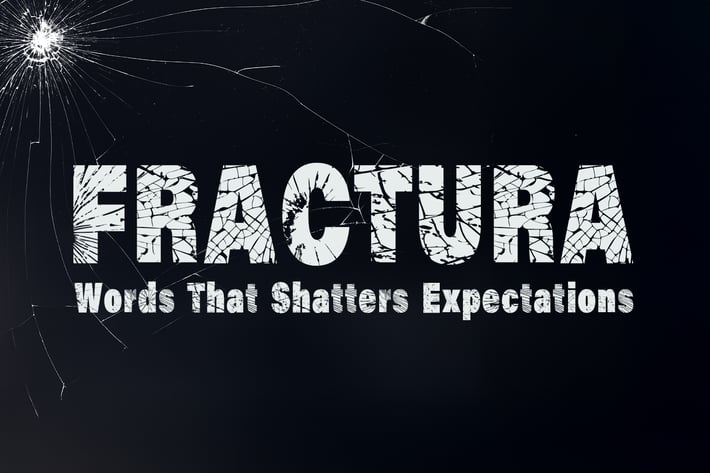
Fractura Font
Font Description:
Discover Fractura, a bold, striking cracked-style font perfect for creating edgy, distressed designs. Ideal for logos, posters, album covers, gaming visuals, and more, Fractura adds a raw, fragmented aesthetic to your projects. This versatile typeface combines creativity with a shattered edge, making it perfect for modern, grunge, and abstract themes. Download Fractura today and elevate your digital and print designs with its unique, cracked charm!
Unique letterforms